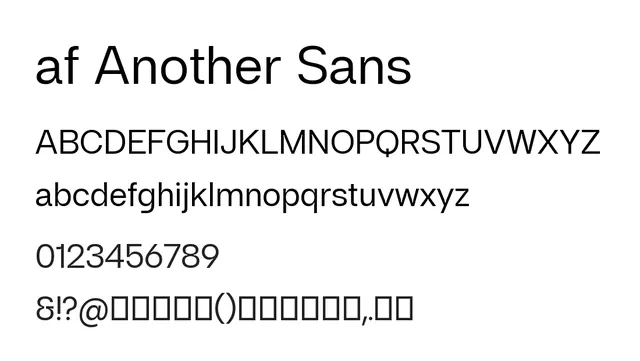
af Another Sans
A humanist neo-grotesque sans with generous counters and friendly proportions, balancing technical precision with warmth.
Excellent for extended body text and UI layouts requiring accessibility and readability. The humanist touches make it feel inviting while remaining contemporary and professional across digital and print media.
Pairs naturally with geometric display fonts or slab serifs like Action Text Bright for contemporary design systems.